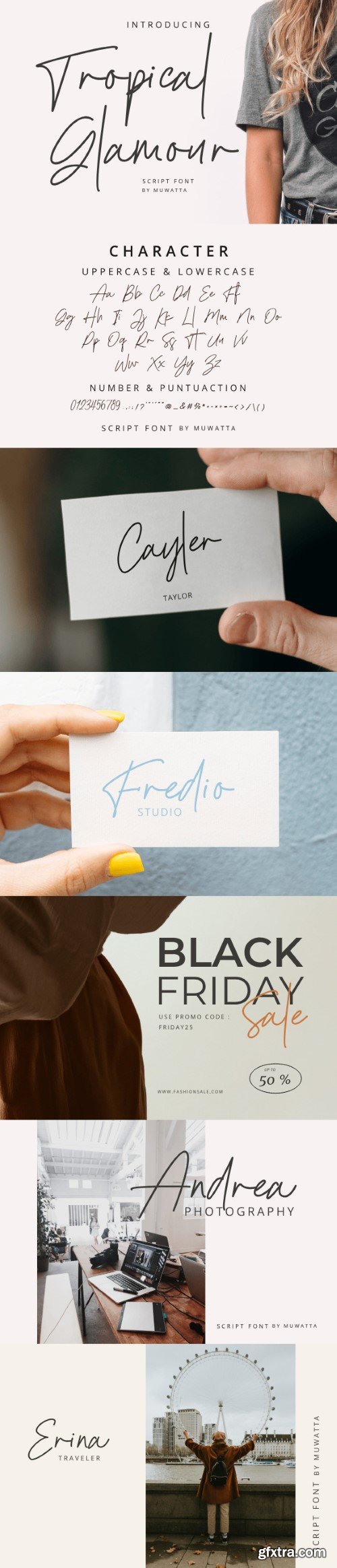
热带奢华字体
Tropical Glamour is a charming script font that effortlessly combines elegance with a touch of exotic charm. This font design is reminiscent of a handcrafted signature, featuring a flowing, graceful style that adds a personal and unique feel to any project.